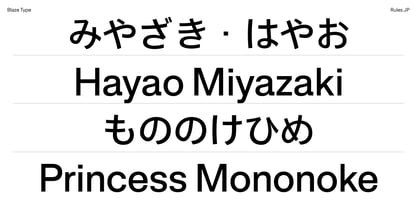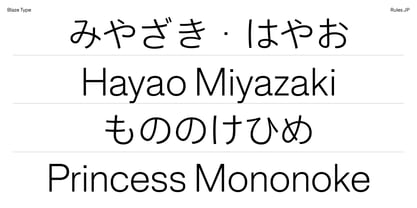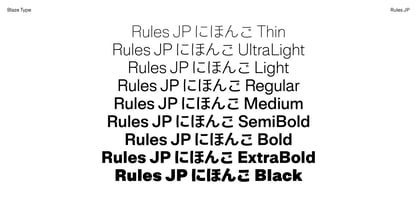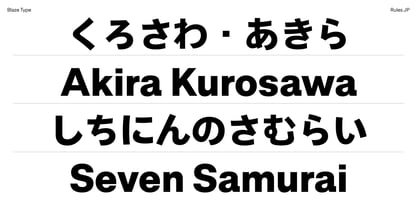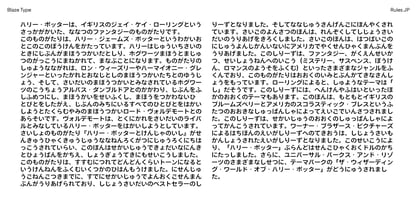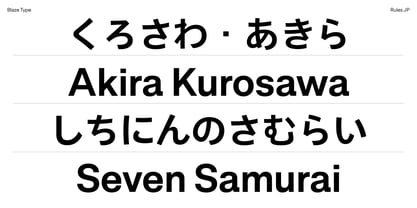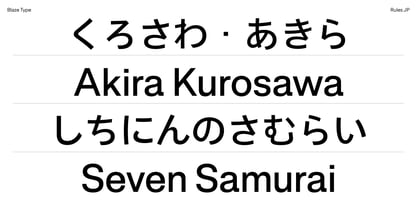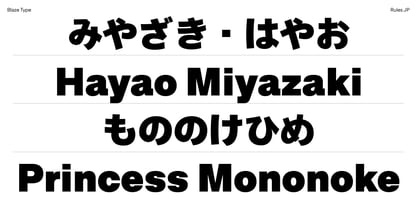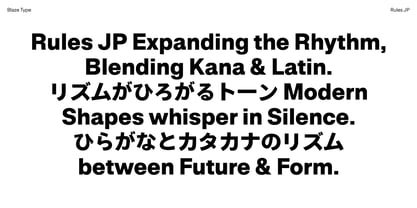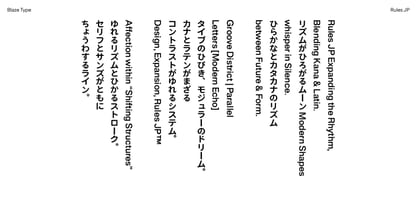
Rules JP
by Blaze Type
The Rules JP Font Family was designed by Caio Kondo, Léon Hugues, Matthieu Salvaggio and published by Blaze Type. Rules JP contains 10 styles and family package options. More about this family
Rules JP is the Latin+Japanese (Kana) support of Apoc Font Family. Supporting both Horizontal and Vertical writing system. Rules font is a contemporary interpretation of the neo grotesque font era, with an edge. Rooted in Swiss Modern type inspiration and built with a strong structure in the respect of type design tradition. Rules font features modern capitals (optically-matching widths). Next to no contrast in counter-forms. Closed edged terminals and an elegant twist bringing a colorful aspect to optical gray in text layouts. The whole font family is topped off with squared endings, giving the whole font family a great pace.
Rules font is a modern neo-grotesque font family with an edge.
This font family was especially thought for body texts in print, web & app uses and still performs greatly when used as a main headline or display fonts for posters as well as in signage system.
Designers: Caio Kondo, Léon Hugues, Matthieu Salvaggio
Foundry: Blaze Type